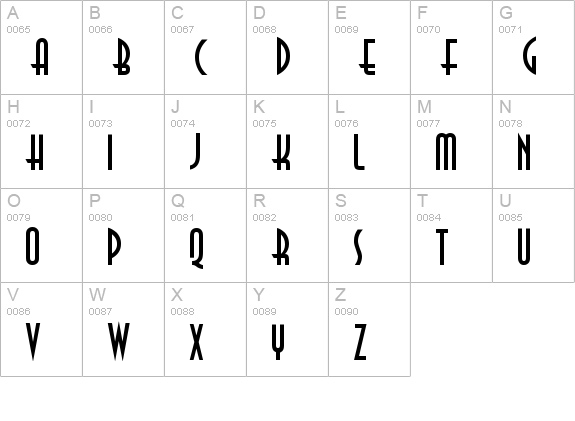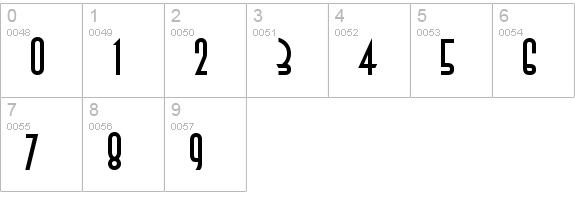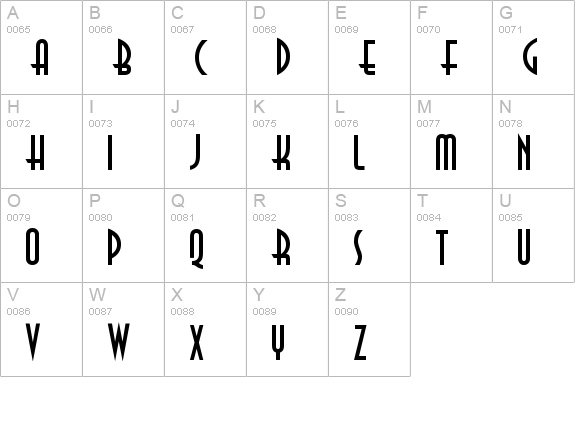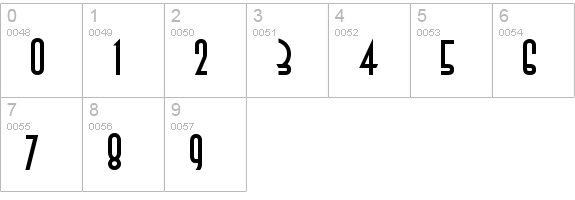
Don Pico font is a stylish and modern typeface that exudes sophistication and elegance. With its sleek lines and contemporary design, this font is perfect for a wide range of projects, from branding to editorial design. The clean and crisp letterforms of Don Pico font make it easy to read, while its unique character adds a touch of personality to any text. The best part about Don Pico font is that it is completely free to download at FontsMarket.com. This means that you can add this beautiful font to your collection without any cost, making it a fantastic choice for both personal and commercial use. Whether you're creating a website, designing a poster, or working on a logo, Don Pico font is sure to make your work stand out. Don Pico font is versatile and easy to use, making it a valuable addition to any designer's toolkit. So why wait? Head over to FontsMarket.com today and download Don Pico font for free to elevate your designs to the next level.